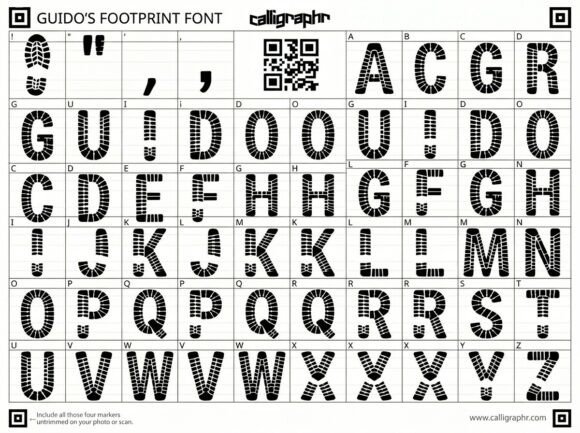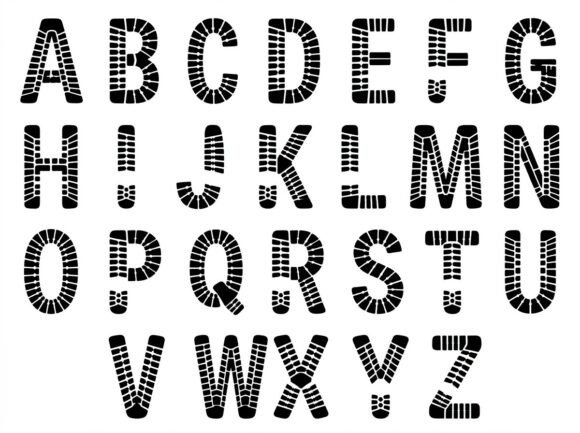
Introduction to Guido Font
Step into a world of rhythmic urban energy with Guido, a unique display font collection inspired by the technical patterns of sneaker sole treads.
This typeface features heavy, blocky letterforms meticulously constructed from a cast of industrial โgripโ textures, horizontal ridges, and geometric traction motifs Its massive visual weight and athletic silhouette make it an extraordinary choice for streetwear branding, high-performance athletic apparel, urban lifestyle magazines, and high-impact sports graphics.
Key Features of Guido Font
Why Choose Guido Font?